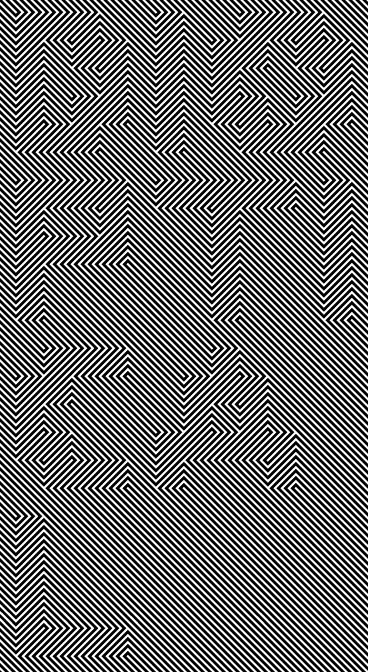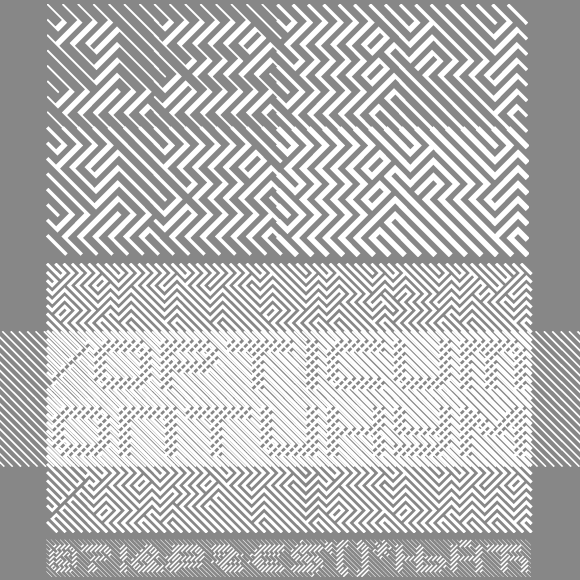
Excellent, you magician, you!
That is outstanding Em42. Amazing job.
wow. this is an unbelievable great work!
Diabolical! I want to wallpaper my bathroom with it.
oh... my eyes...
I try this whith colors...
@afrojet: why the bathroom? :)
Very nice work!
Not easy on the eyes, specially on screen, but must look great on paper.
@Em42: Because its smallness of size would amplify the effect. Which I imagine to be, like a boxing match between claustrophobia and vertigo.
Mindbending, Em! I can't stop staring at it. I'm hypnotized! How do you make it stop?
@Icare, Jmarquez & Gene: the font was closeted in my FontStruct lab for quite a long time because I was not sure about how much disturbing the optical effect was: personally I find it is funny to get lost for a few split seconds in it, but not longer!
@Afrojet: a wallpaper like this in a small room? It would really drive anyone crazy...
INCREDIBLE FONT!
cool!! OMG my eyes....
Genious!
very good.
Brilliant Font! Perfect for an "Under Construction" image on websites...
I need to figure it out in large print but that is one I wil do with my cutterplotter and put on the side of my car....
@Klinkhart: I would love to see examples of this font in action. If you put it on the side your car, be aware of possible crashes! :)
Oh my god. Simply amazing
That's insane! I almost didn't see the letters at first, then I was like "wait a sec..." haha. good work!
That's a verry nice font
Ça fait tourner l'esprit! C'est magique
Really impressive. I humbly request a "thinner" version with more white space between the lines for increased visibility at smaller sizes.
@Emepar7: thanks for the suggestion! Unfortunately with the current FontStruct bricks it is possible to get a thinner line only by increasing the grid size and starting the work from scratch... I have to think about it! :)
@Em42 & Balseca
Another case like Enanitos VS Satriani VS Coldplay ?
One of the winners of the TDC2 2009
@Balseca and JMarquez: all these fonts, mine included, are based on the same (known) optical trick usually seen in library of optical illusions. I was not aware of the Victor font, and I saw the Optica font on I love typography when Dioptical was almost finished (check the creation date).
MY EYES!!! x_x
haaaaaaaaaaaaa
my eyes!
Optical Illusion
my eyes
this is giving me a headache